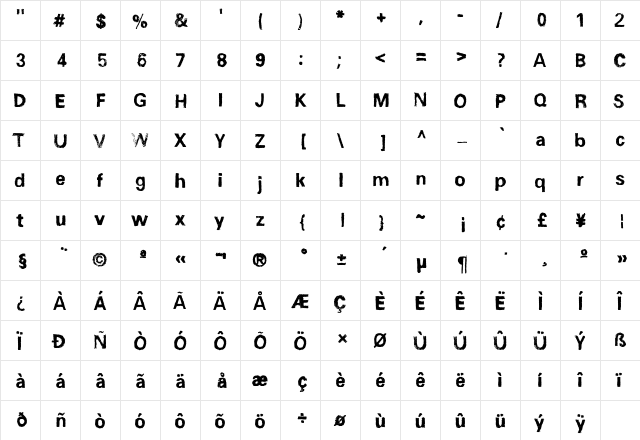
Unisketch_limited Bold
| Foundry | Ursula Hitz |
| Designer | Ursula Hitz |
| Year | 2010 |
Design Context for Unisketch_limited Typeface
Unisketch_limited takes a measured approach to typography — its balanced proportions and neutral character make it a reliable workhorse for both digital and print work. Its bold stroke weight gives it real presence on the page.